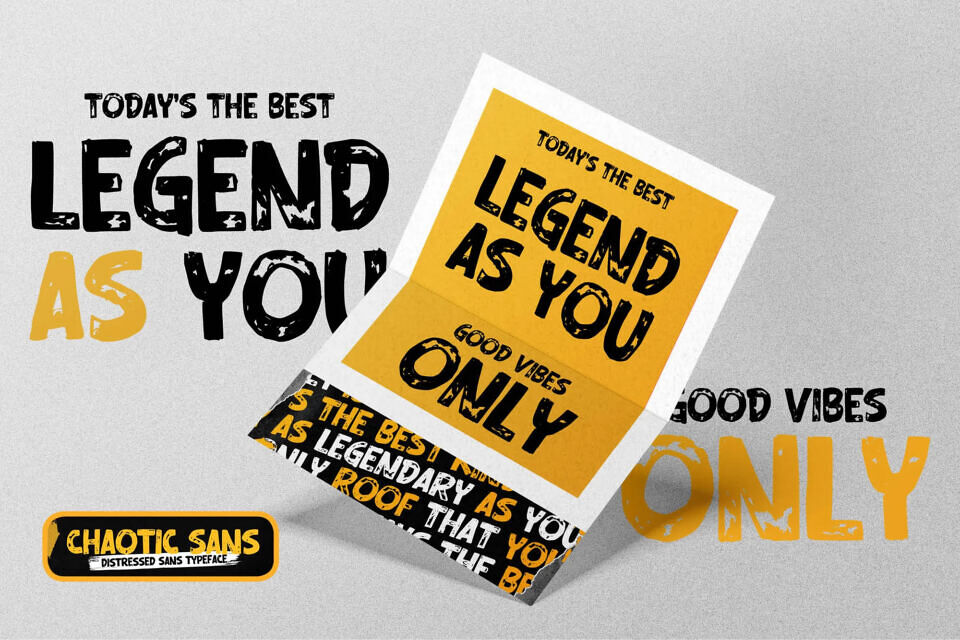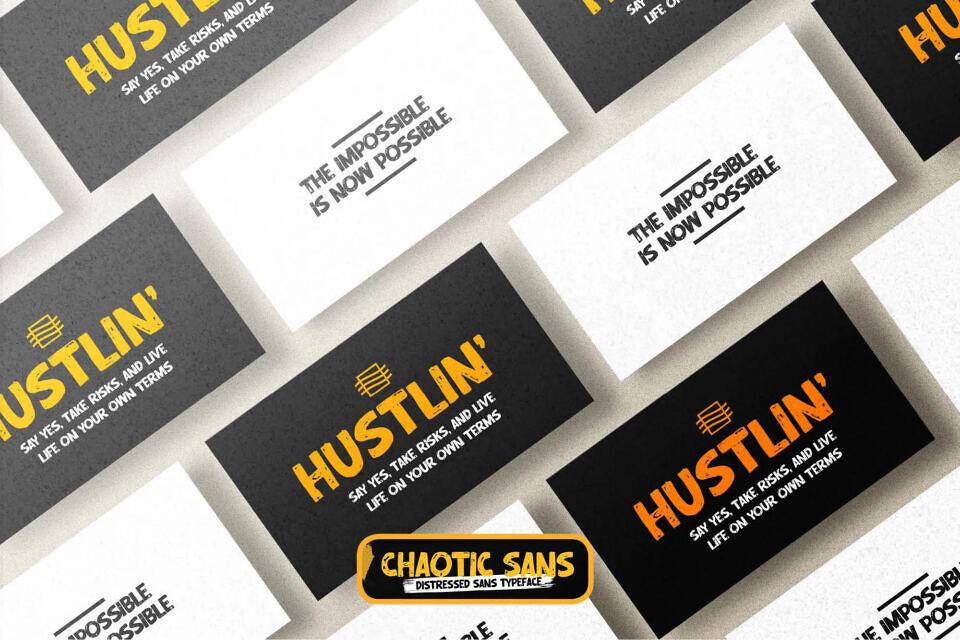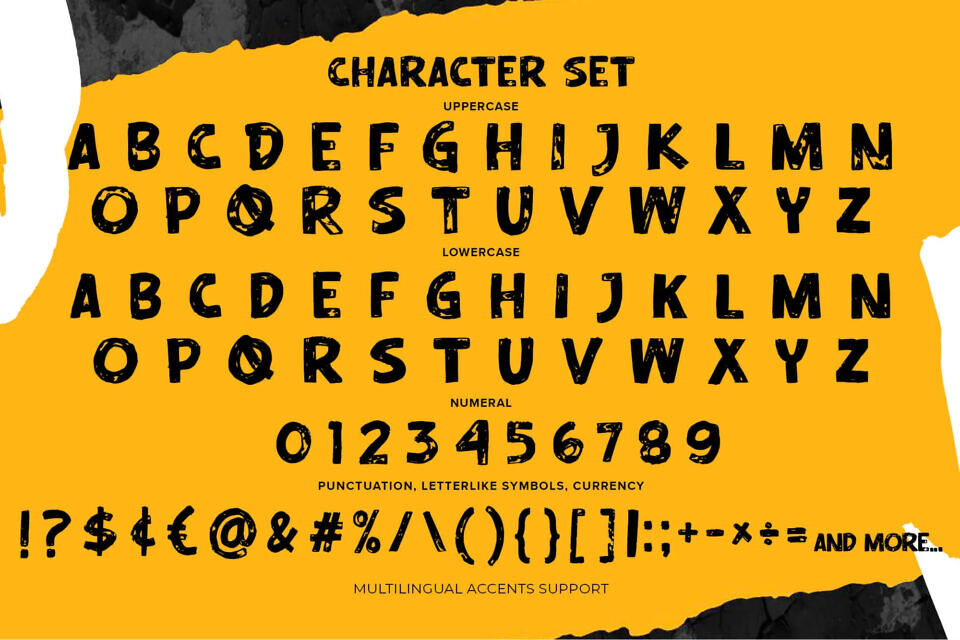
Chaotic Sans Font
Introducing Chaotic Sans, a distressed display font with a casual, handwritten feel. Created using brushes on Procreate, each letter is carefully crafted and converted to vector format. This process gives Chaotic Sans a stylish, strong, and natural appearance, adding a modern touch to your text.
Chaotic Sans is perfect for homeware designs, branding projects, Logo design, Quotes product packagingprinted quotes, invitations, cards, product packaging, headers, Logotype, Letterhead, PosterLabel, cartoon, and comic etc.